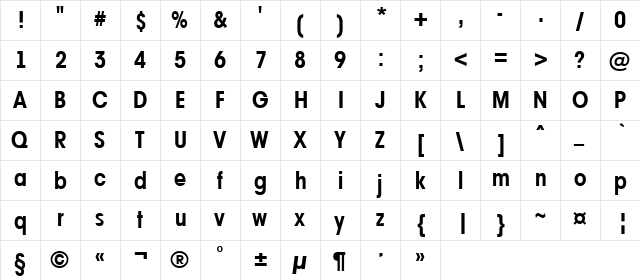
a_AvanteBsNr Bold
Design Context for a_AvanteBsNr Typeface
a_AvanteBsNr is a composed and adaptable typeface that performs quietly and consistently across a wide range of design contexts. The heavy weight commands attention and anchors typographic hierarchies.